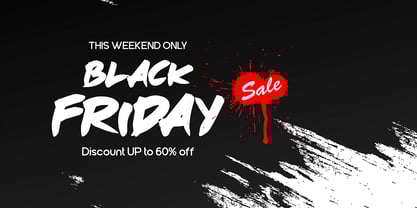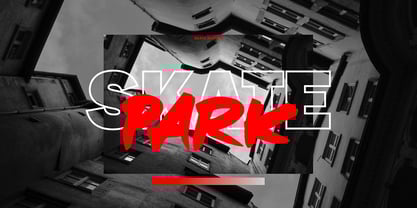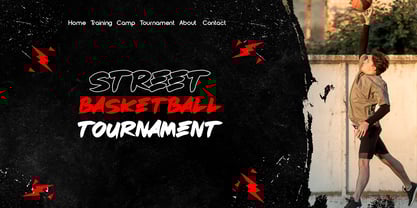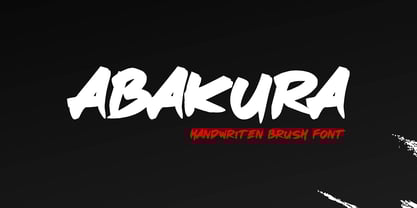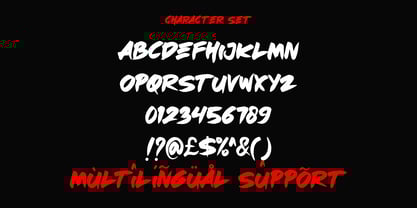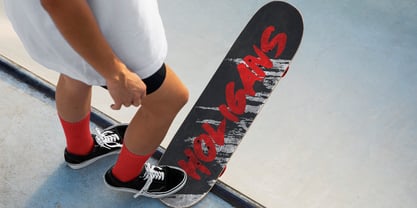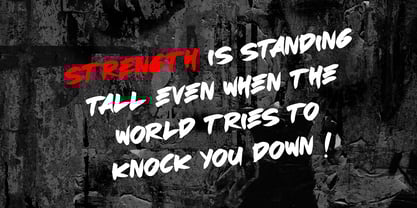
Abakura
by Sipanji21
The Abakura Font Family was designed by Sipanji and published by Sipanji21. Abakura contains 1 styles. More about this family
This handwritten brush typeface captures the raw intensity of expressive street lettering with bold strokes, natural pressure changes, and energetic movement. Inspired by fast hand-drawn writing, urban brush tags, and contemporary street typography, this typeface is designed to deliver strong visual impact while maintaining organic flow and readability. The character shapes are intentionally imperfect, reflecting real brush movement and natural handwriting rhythm. Each letter feels alive, aggressive, and confident, making it ideal for projects that demand bold personality and emotional presence. This style is perfect for designers who want to inject attitude, energy, and authenticity into their work without relying on artificial effects. Built with a strong focus on versatility, the typeface works exceptionally well across branding, poster design, apparel graphics, album covers, social media visuals, advertising campaigns, and digital content. Whether used at large display sizes or scaled down for headlines, the letterforms maintain clarity while preserving their expressive brush texture. The uppercase and lowercase characters are carefully balanced to create dynamic compositions, allowing designers to craft layouts that feel spontaneous yet controlled. Numbers and punctuation are included and designed to match the bold handwritten aesthetic, ensuring consistency across all design elements. Multilingual support expands usability across international projects, making this typeface suitable for global branding and cross-market creative campaigns. From streetwear labels and music merchandise to promotional graphics and modern advertising, this brush lettering style adapts seamlessly to both print and digital environments. This typeface excels in projects that require emotional intensity and visual confidence. It brings power to headlines, energy to logos, and attitude to layouts. Its brush-driven personality makes it especially effective for urban brands, sports visuals, youth-oriented campaigns, and creative industries that thrive on bold expression. Designed for professional creatives, this typeface offers a balance between raw expression and functional usability. It is not just decorative lettering, but a practical design tool for impactful typography. Whether you are crafting a rebellious brand identity, designing eye-catching posters, or producing digital visuals that demand attention, this handwritten brush style delivers strong results. If you are looking for a typeface that feels bold, expressive, and authentically hand-crafted, this design provides the perfect solution for modern creative projects that demand visual power and street-inspired energy.
Designers: Sipanji
Foundry: Sipanji21